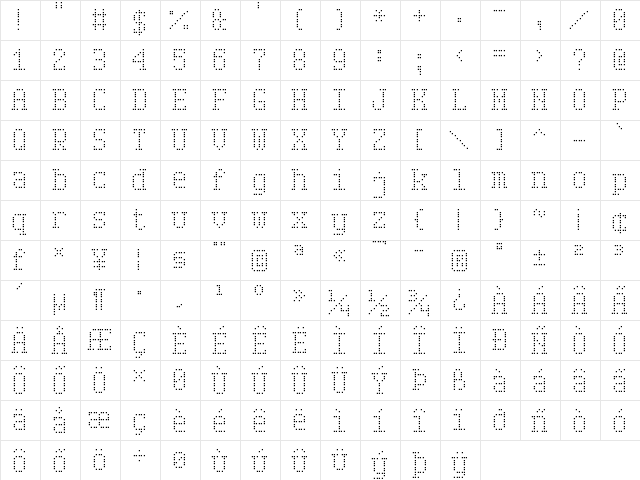
Serif Dot Digital-7 Regular
| Foundry | Style-7 |
| Designer | Sizenko Alexander |
Design Context for Serif Dot Digital-7 Typeface
Serif Dot Digital-7 has a distinctly futuristic character, with geometric precision and clean angles that feel at home in technology, gaming, and sci-fi contexts.